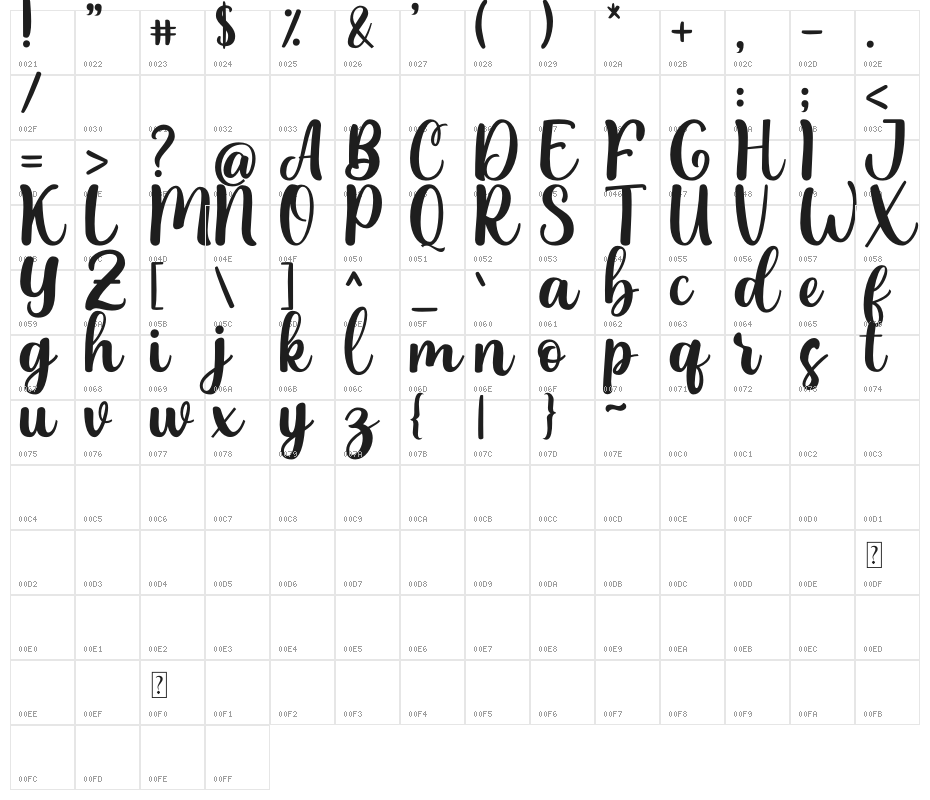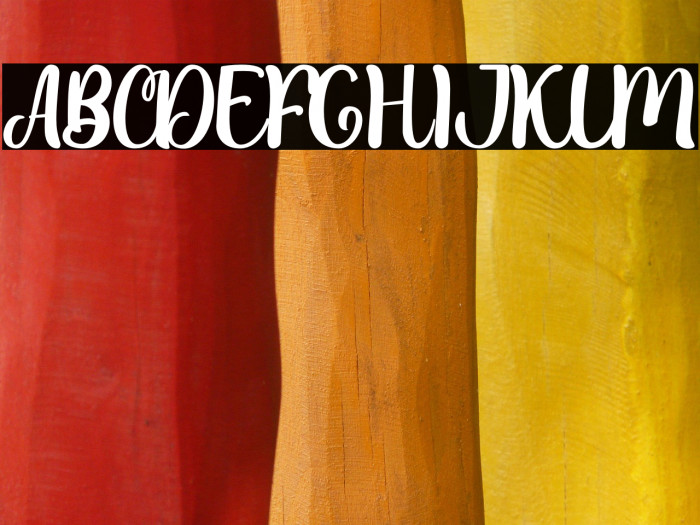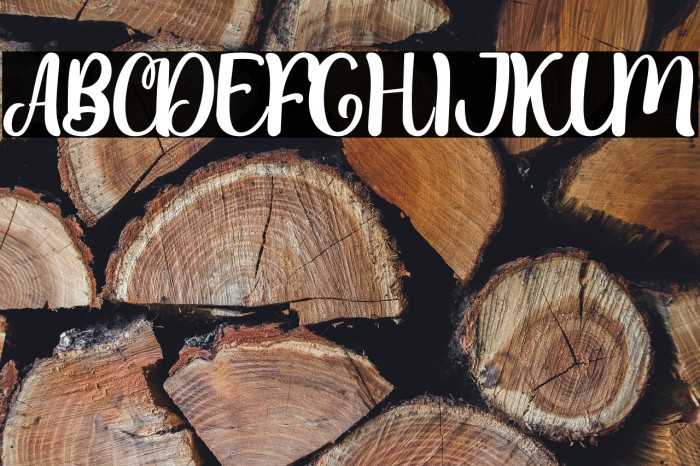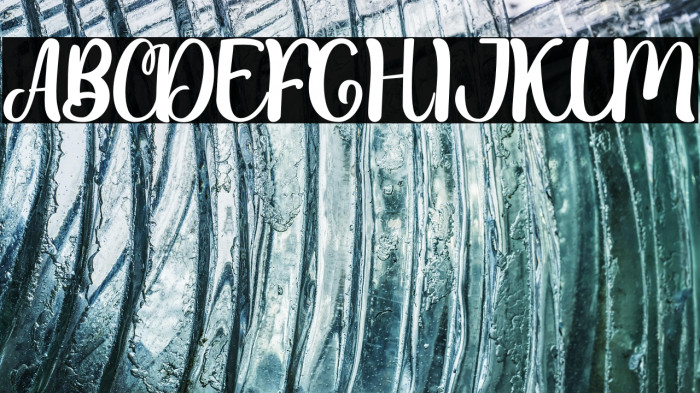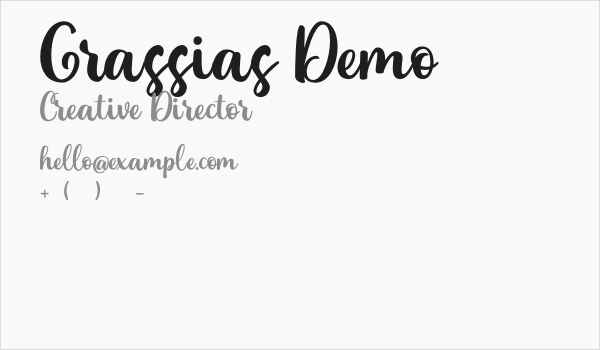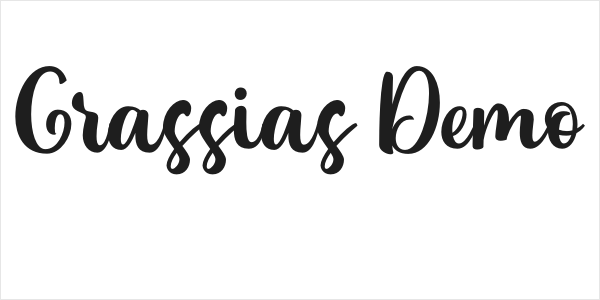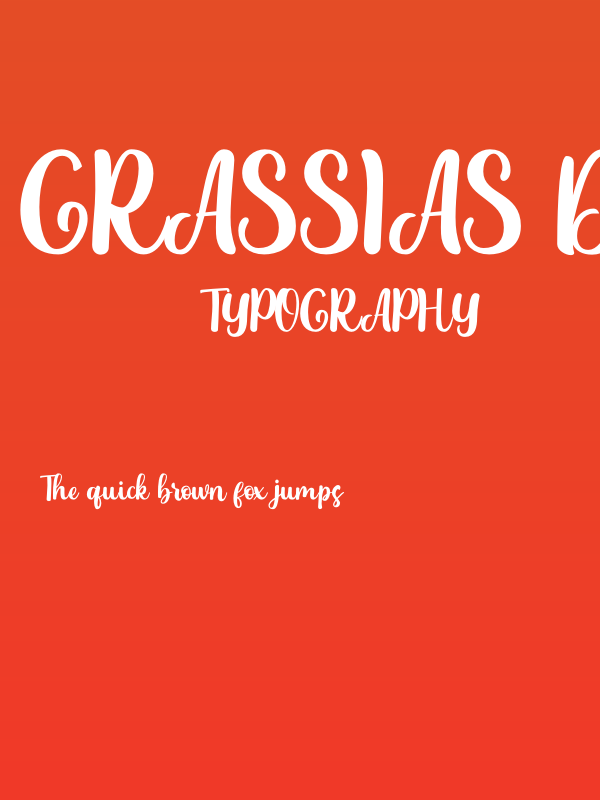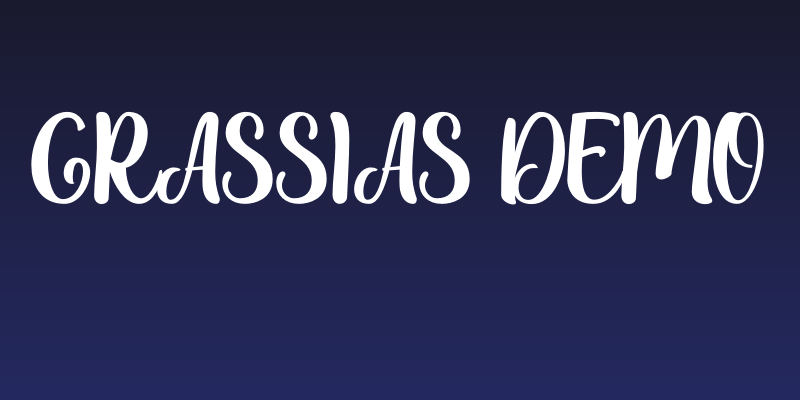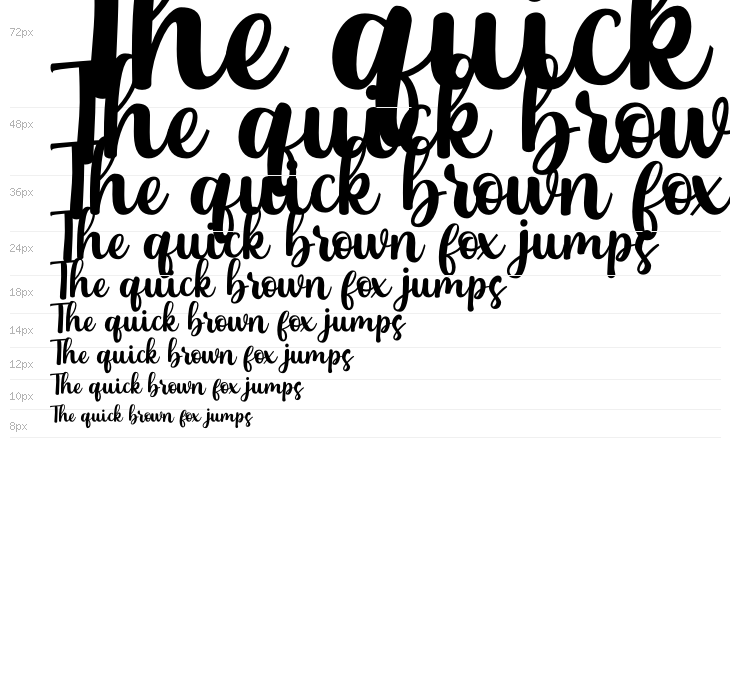
Grassias Demo Font
Grassias Demo Description
This font features a playful and energetic script style with a handwritten appearance. The characters are bold and fluid, with a consistent stroke width that gives it a cohesive look. The uppercase letters are slightly larger and more pronounced, while the lowercase letters maintain a smooth flow, enhancing readability. The special characters are designed to match the overall style, adding versatility for various uses. The font's lively and informal nature makes it suitable for creative projects that require a personal touch.
| Proposed Projects | Ideal for greeting cards, invitations, branding, and social media graphics. |